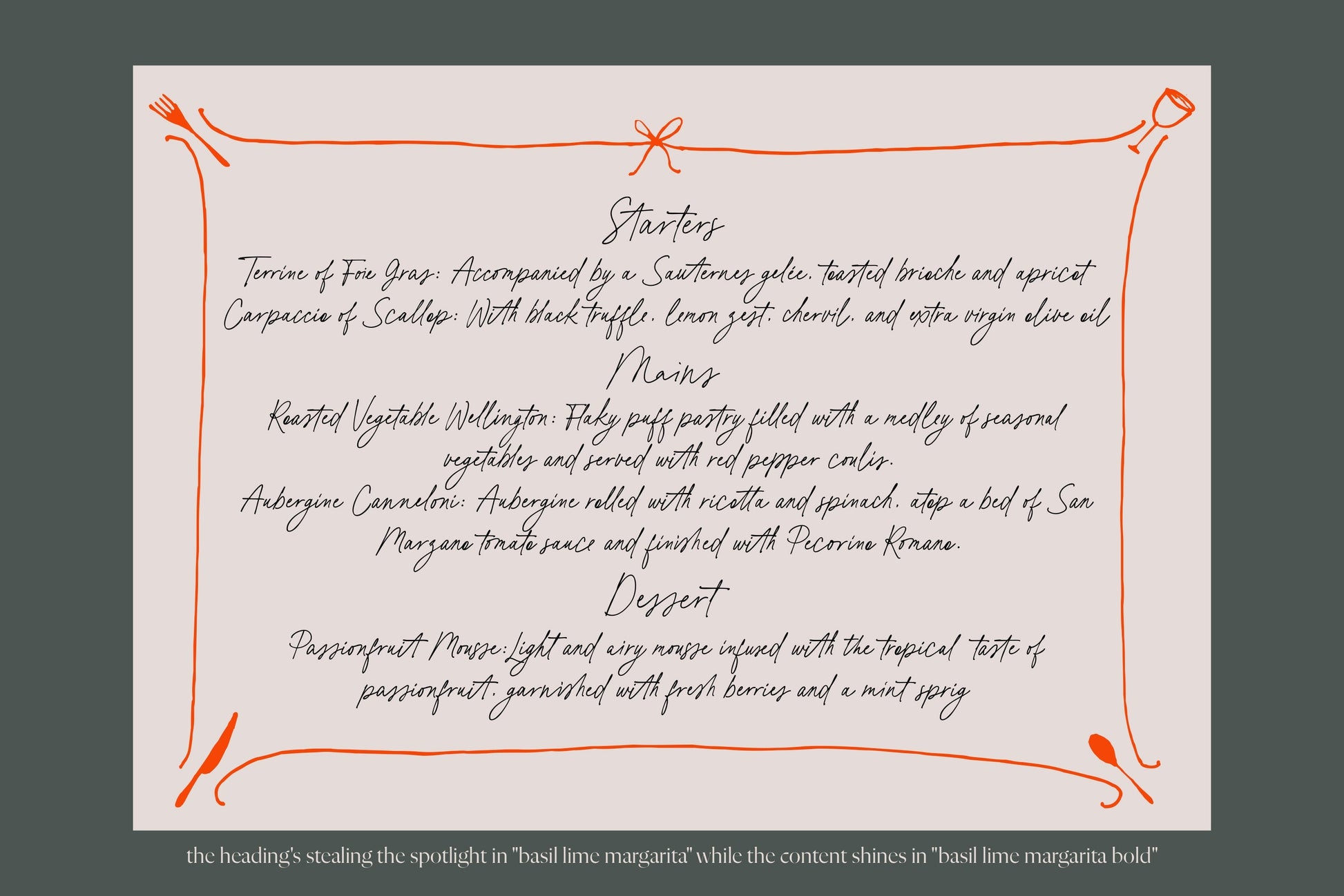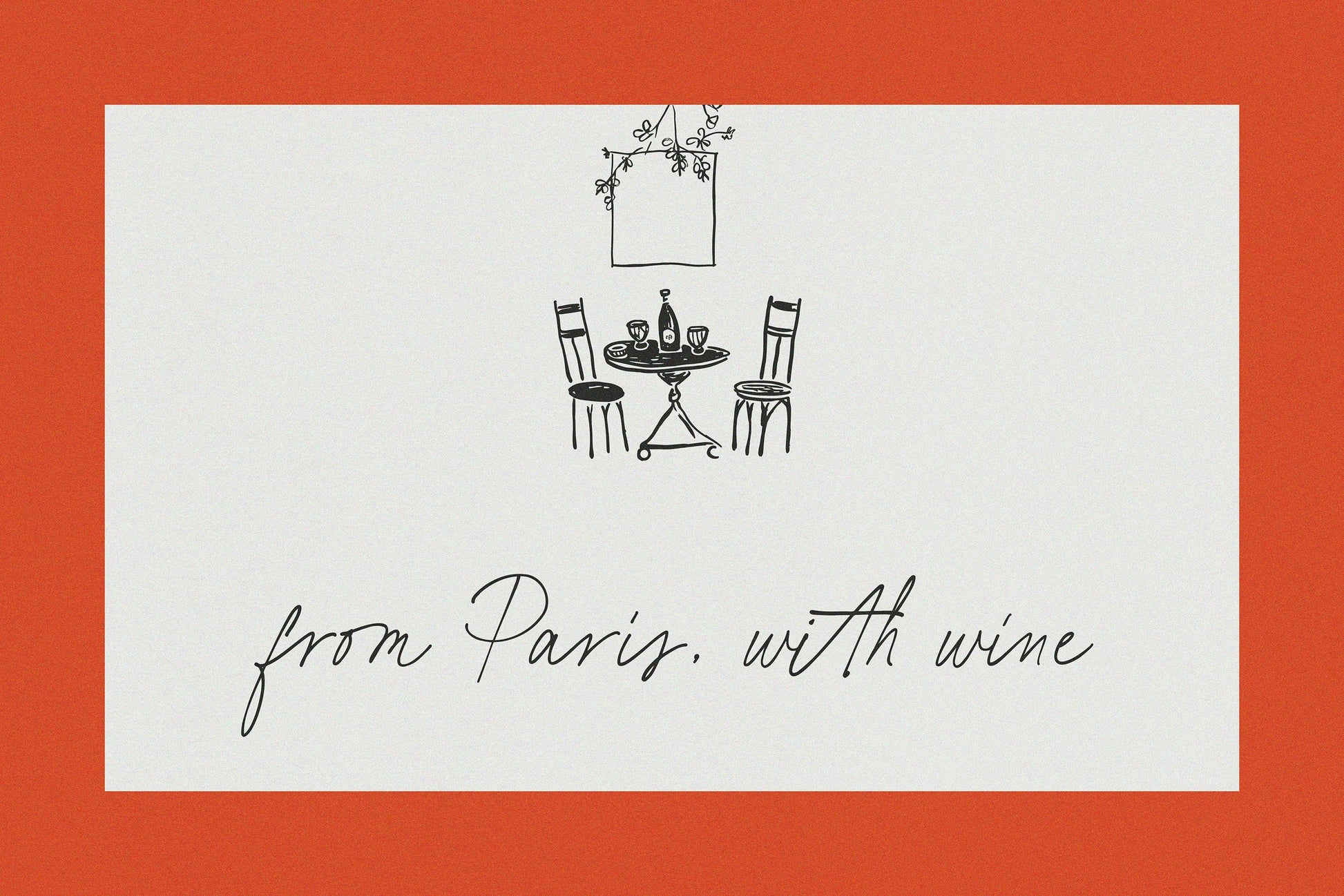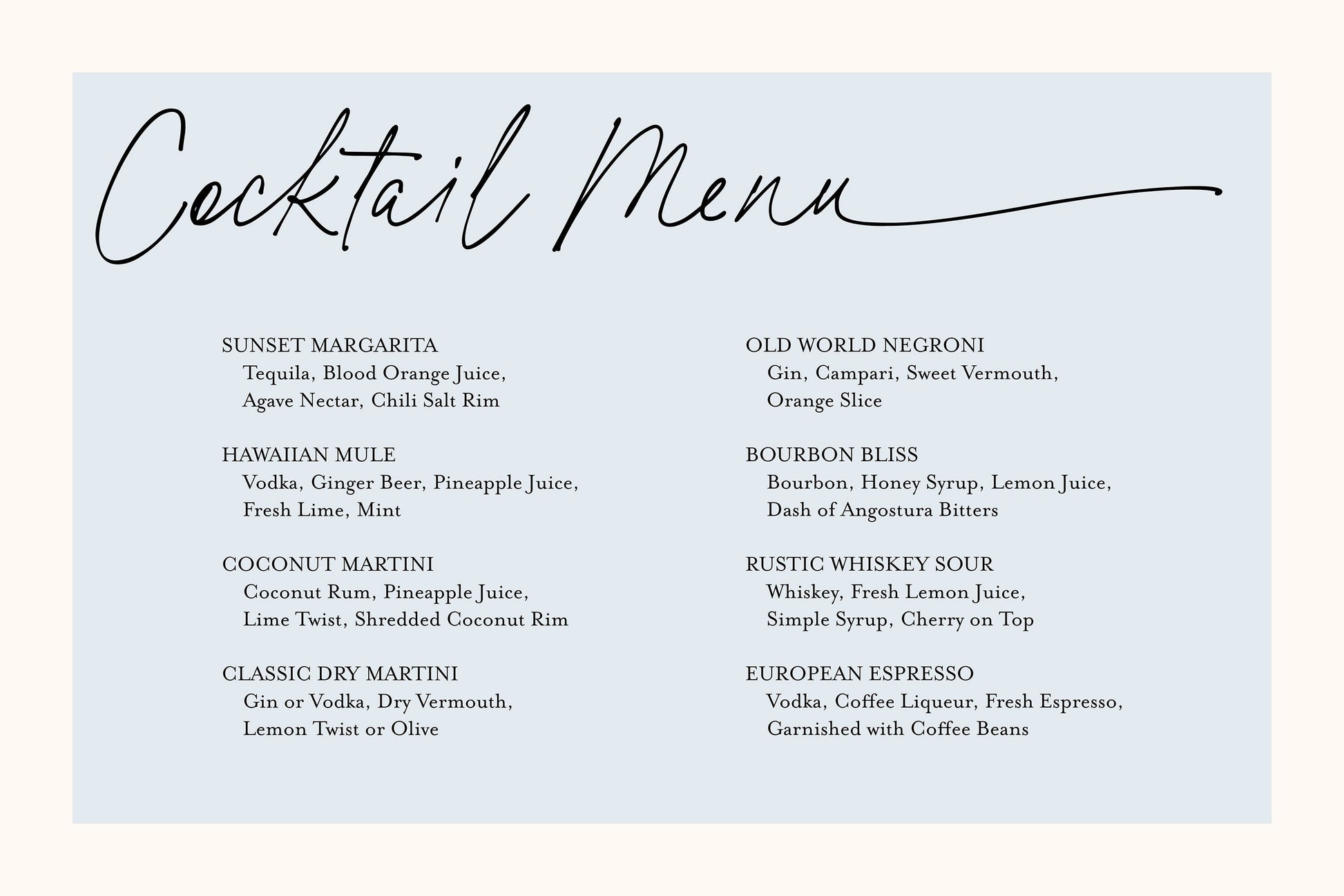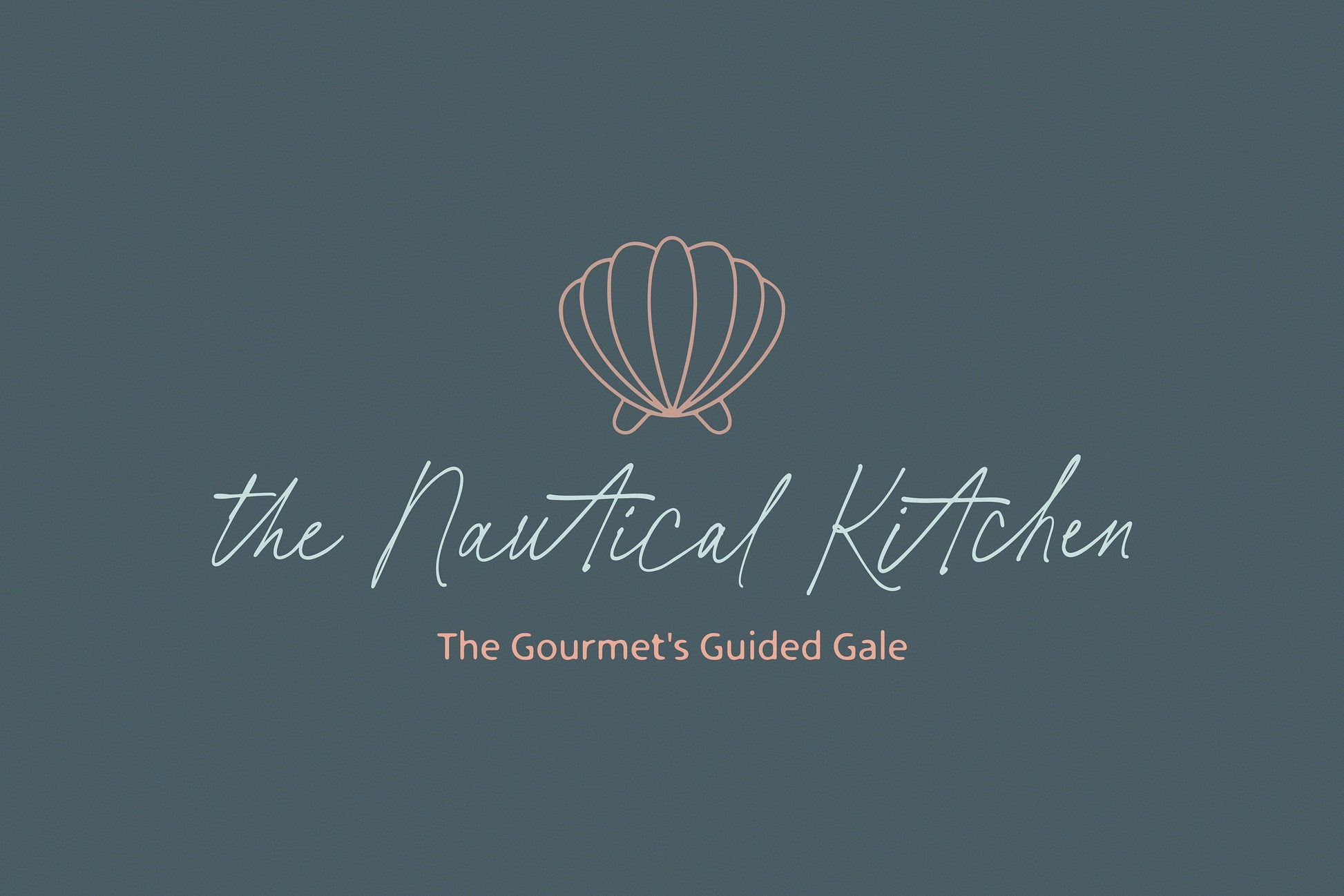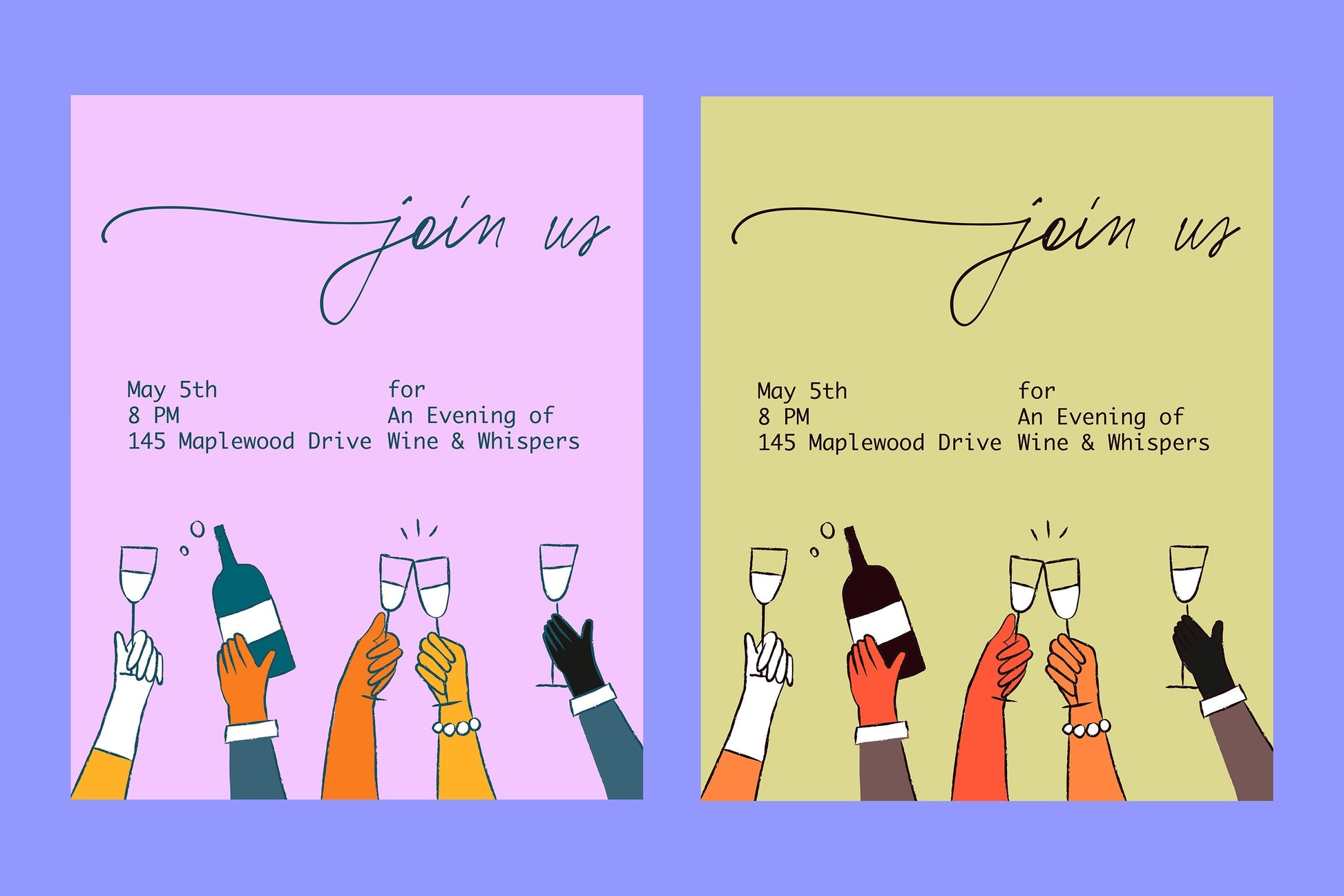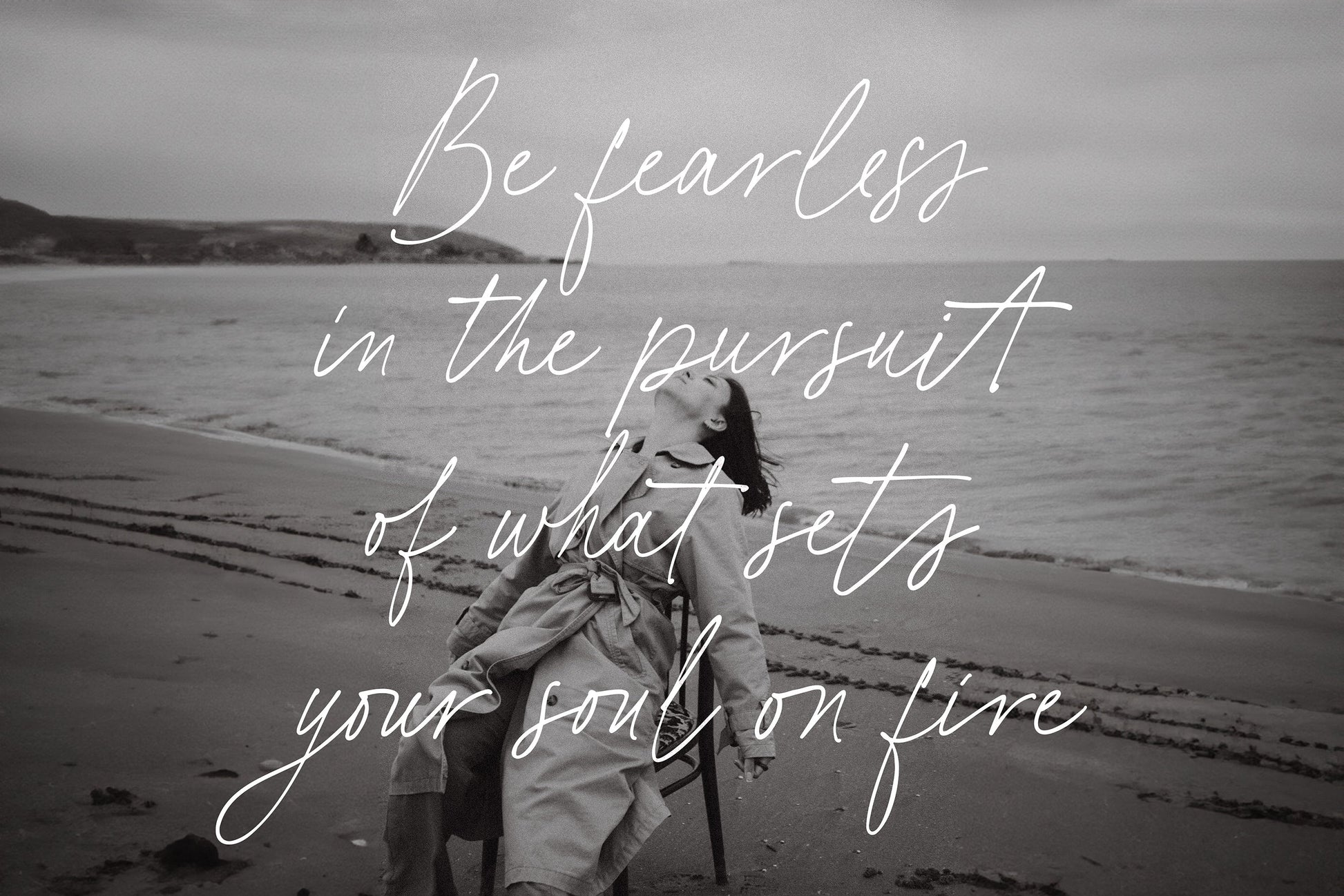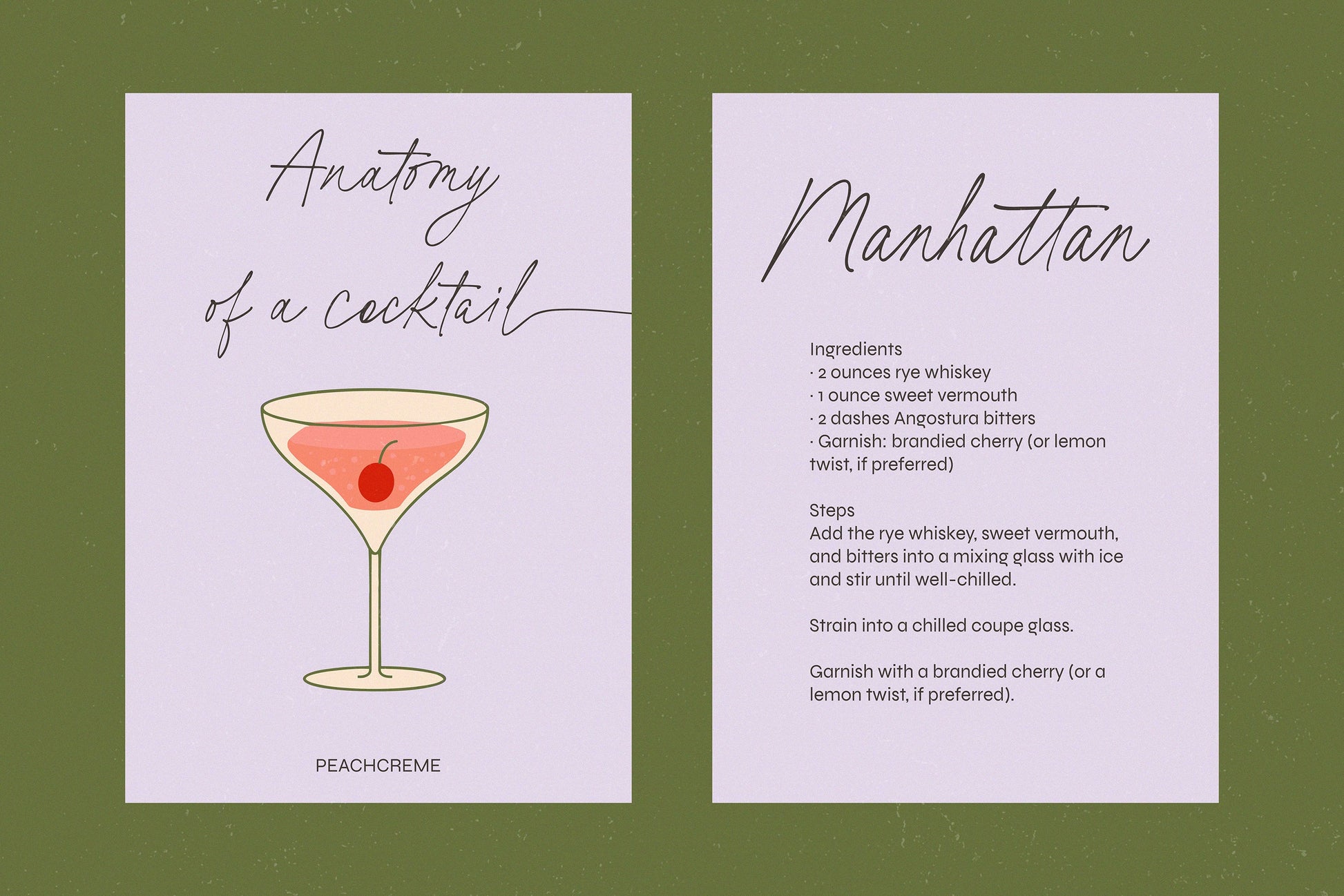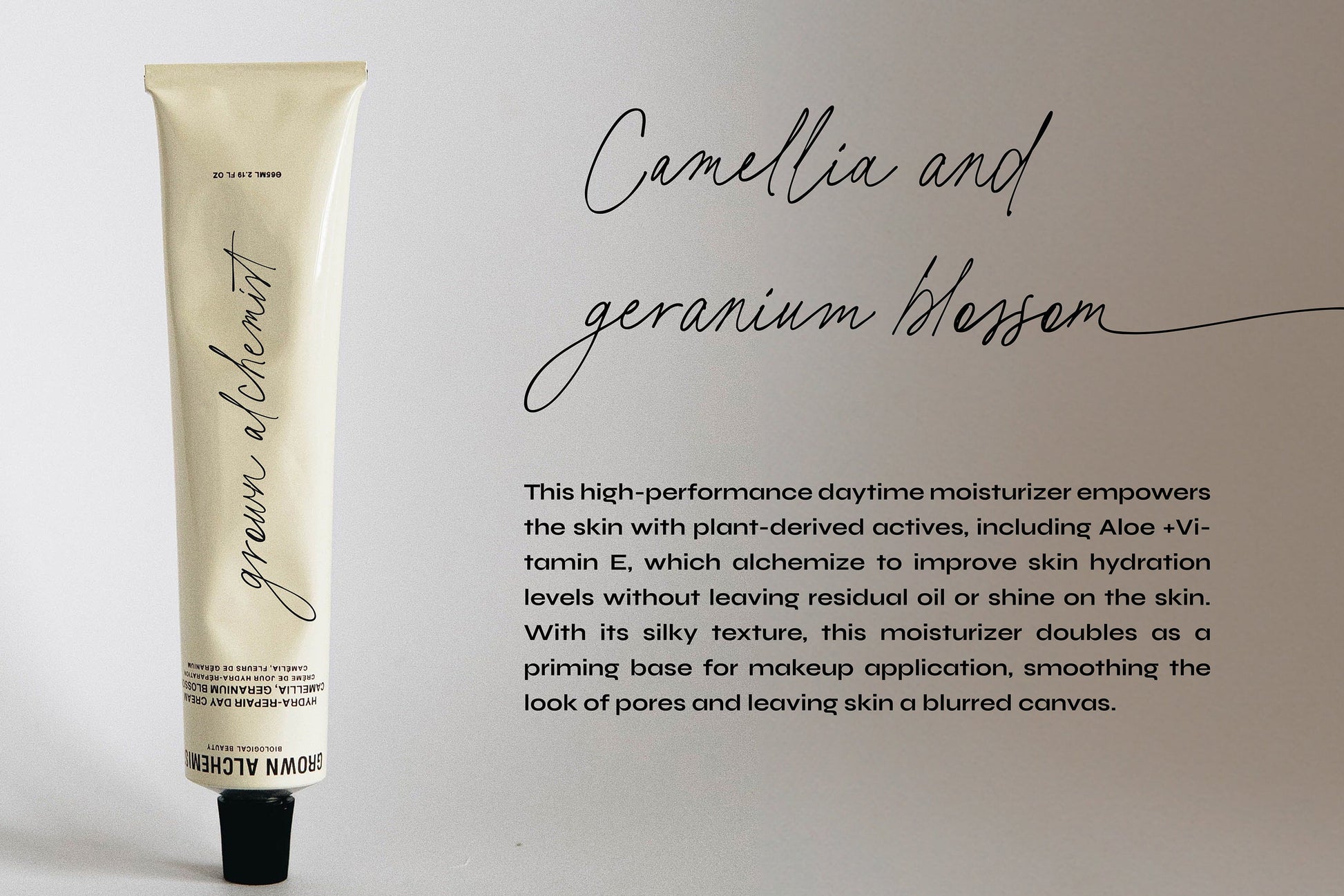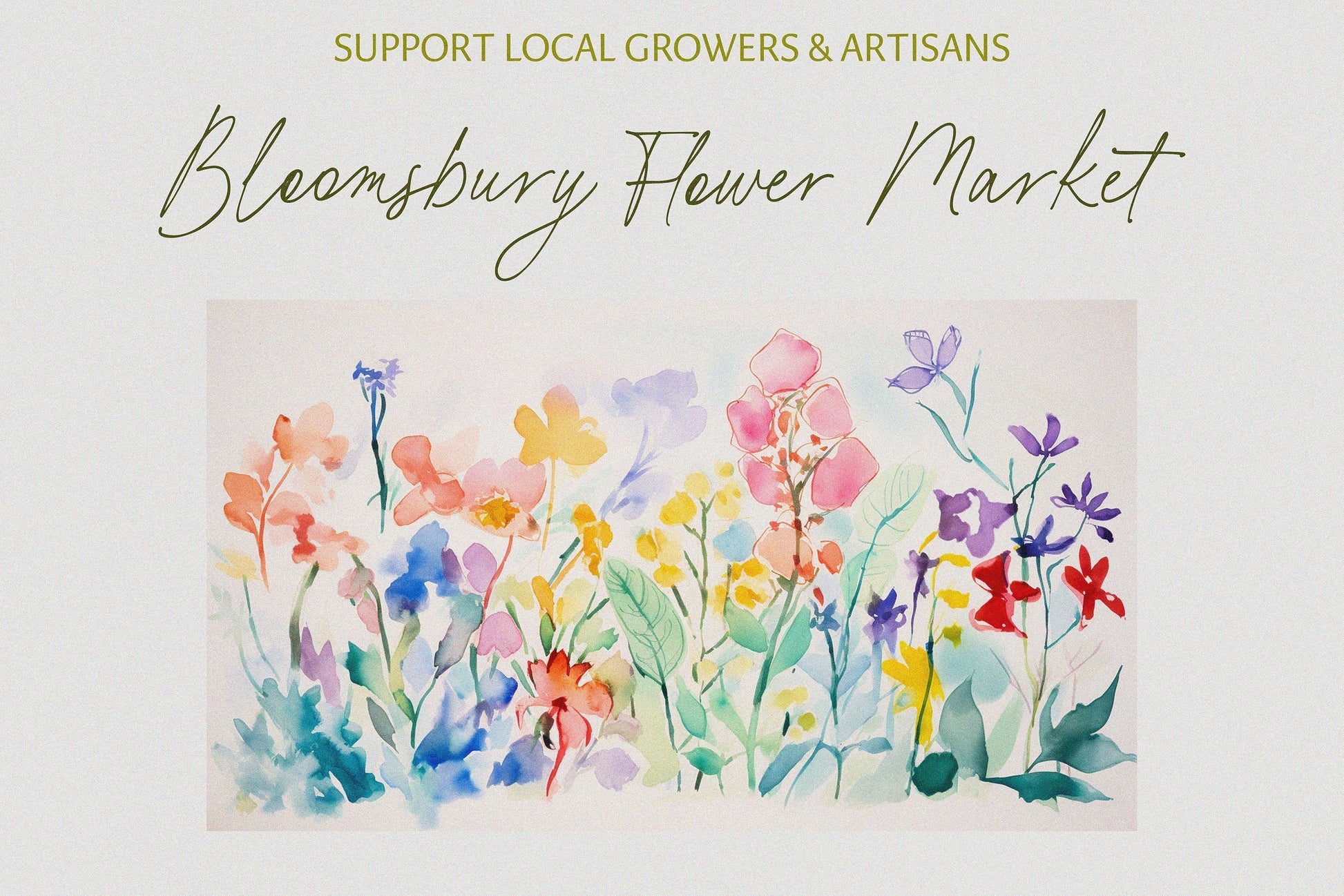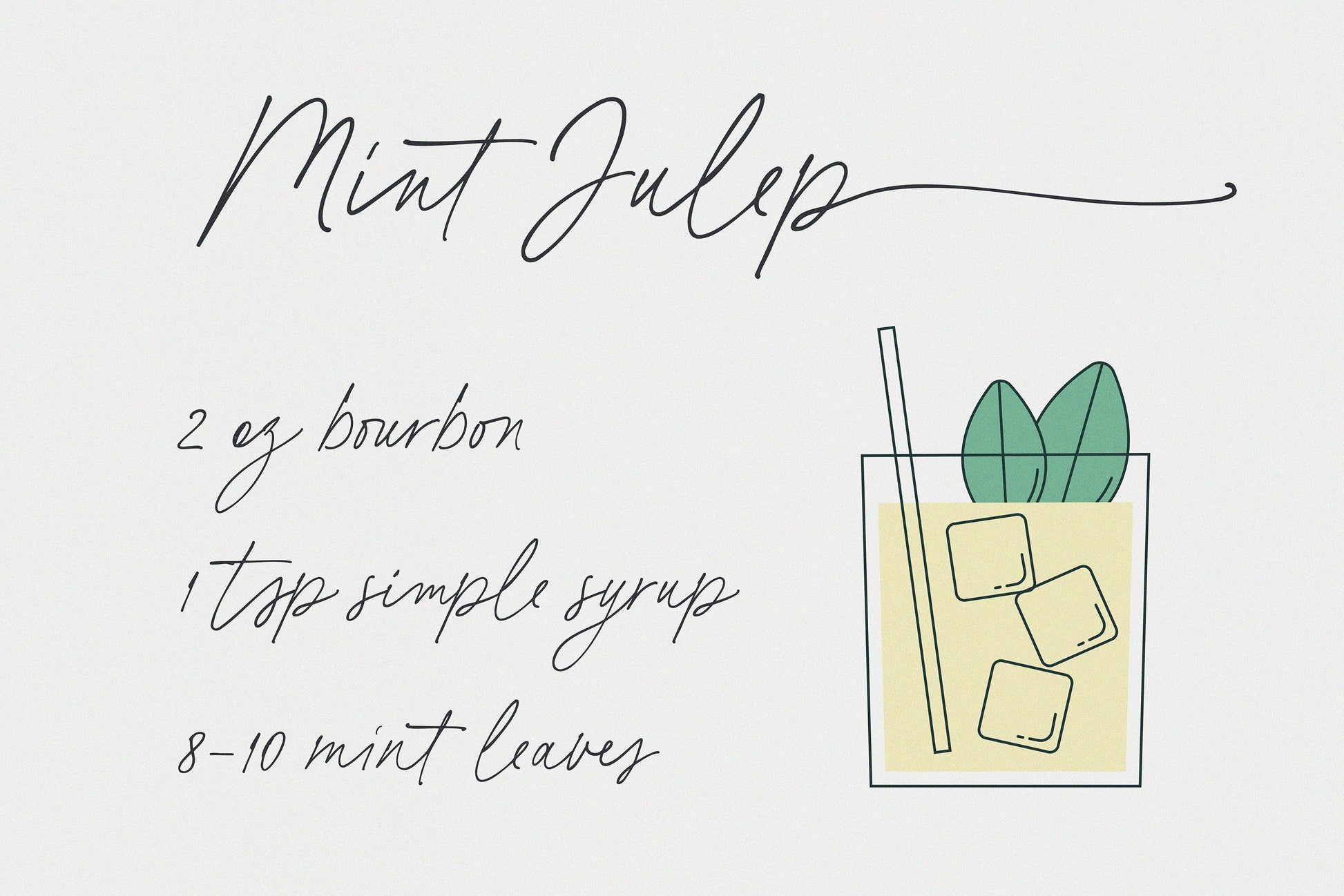
Basil Lime Margarita // Handwritten Font
Dive into the refreshing elegance of "Basil Lime Margarita" – a font that dances between carefree spontaneity and sophisticated allure. Crafted with the attention to detail reminiscent of bespoke calligraphy, every stroke tells a story. Featuring 123 meticulously designed ligatures, it brings words to life with a seamless flow. And with distinct beginning and ending swashes, this font becomes a playground for design creativity. Whether you're branding a chic cafe or penning heartfelt notes, "Basil Lime Margarita" ensures your message stands out with a dash of zest and a splash of charm.